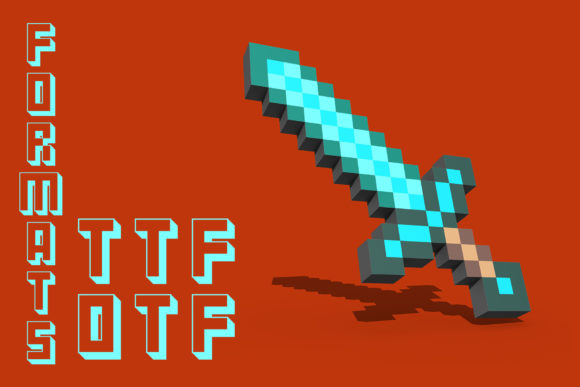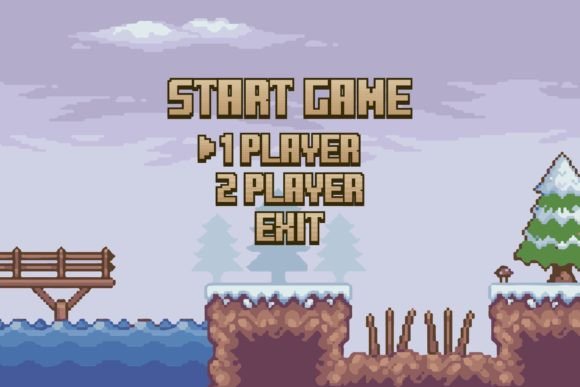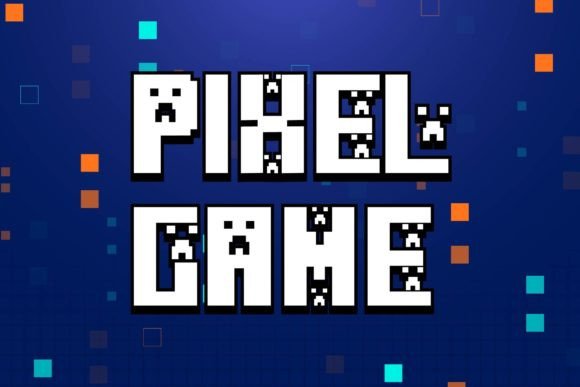
Creeper Font: Blocky Display Font for Playful & Creative Designs!
About the Creeper Font
Let us introduce you to Creeper Font, where timeless design meets modern craftsmanship. Creeper is a cool, block, display font. This font is suitable for designs such as t-shirts, sportswear, logos, advertisements, clothing, and more.
Creeper’s bold, blocky forms excel in large-scale applications like headlines, posters, and branding for products emphasizing strength and a retro aesthetic. It’s ideal for logos needing a strong visual impact and works well on packaging where clear, concise messaging is key. Avoid using Creeper for body text or longform content; its low x-height and broad strokes make for poor readability in smaller sizes.
Pairing Creeper with a clean sans-serif like Open Sans for body copy provides excellent contrast and readability. For a more playful feel, consider a rounded geometric sans-serif such as Poppins. A serif like Merriweather can add a touch of sophistication if a more refined aesthetic is desired.
Creeper projects a confident, retro-inspired personality, making it suitable for brands targeting a younger audience or those with a vintage-inspired identity. Think streetwear, craft breweries, or skateboarding apparel. Its bold character should not be diluted by excessive ornamentation in the supporting design elements.
Creeper Font Usage Examples
Creeper Font Example